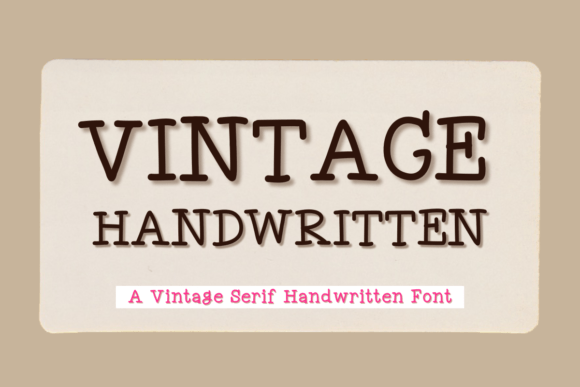
Journey into the realm of nostalgia with Vintage Handwritten Font, a captivating serif masterpiece that whispers tales of timeless elegance. This enchanting font is a seductive fusion of delicate strokes and subtle curves, evoking the allure of bygone eras.
Immerse yourself in the allure of Vintage Handwritten and let its graceful lines dance across your designs, transforming them into enchanting works of art. Whether you seek to craft heartfelt cards, stylish t-shirts, or invitations that exude a touch of nostalgia, Vintage Handwritten will effortlessly elevate your creations.
Allow your designs to blossom with the vibrant spirit of this font. Its versatility knows no bounds, adapting seamlessly to a myriad of styles and themes. From vintage-inspired branding to contemporary designs yearning for a touch of timeless charm, Vintage Handwritten is the font that will ignite your imagination.
Unlock the boundless potential of Vintage Handwritten and unleash your creativity. Its PUA encoding invites you to explore a treasure trove of glyphs and swashes, empowering you to inject a touch of whimsy and allure into every letterform.
Indulge in the beauty of Vintage Handwritten Font today and embark on a creative adventure where nostalgia and innovation intertwine. Let its timeless elegance grace your designs and captivate the hearts of your audience. Embrace the allure of the past and forge a future filled with unforgettable designs.